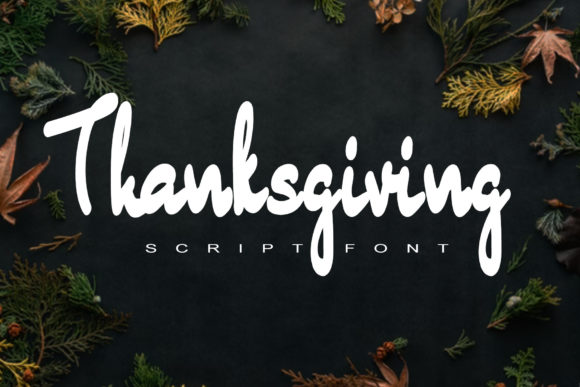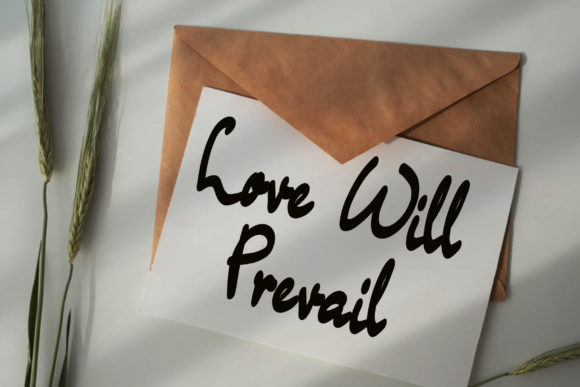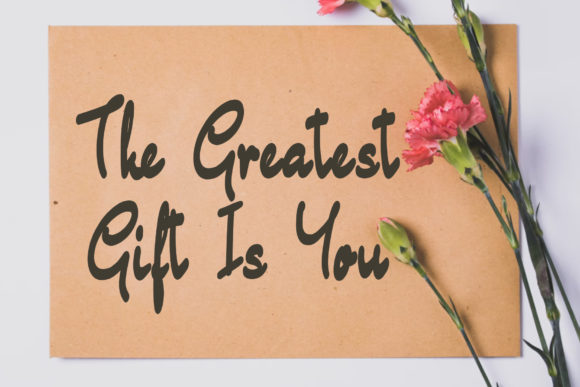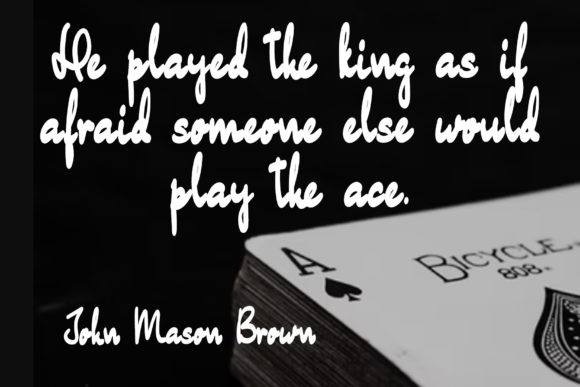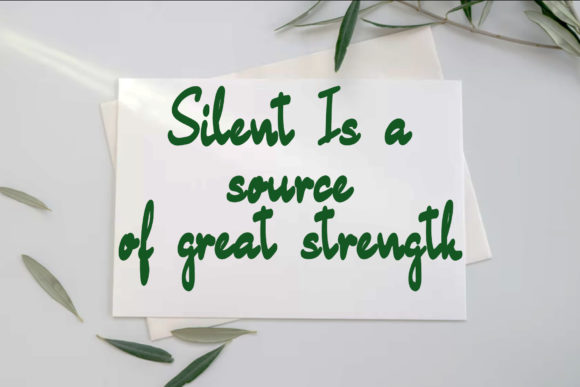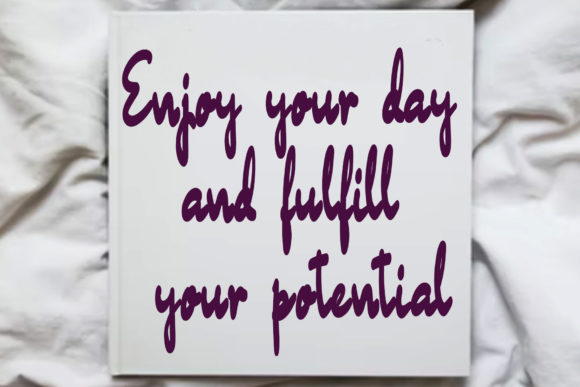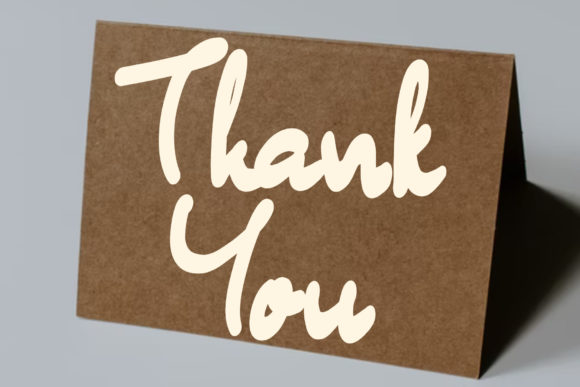
Thanksgiving Font
About Thanksgiving Font
Thanksgiving is an elegant and flowing handwritten font. It looks stunning on wedding invitations, thank you cards, quotes, greeting cards, logos, business cards and every other design which needs a handwritten touch.